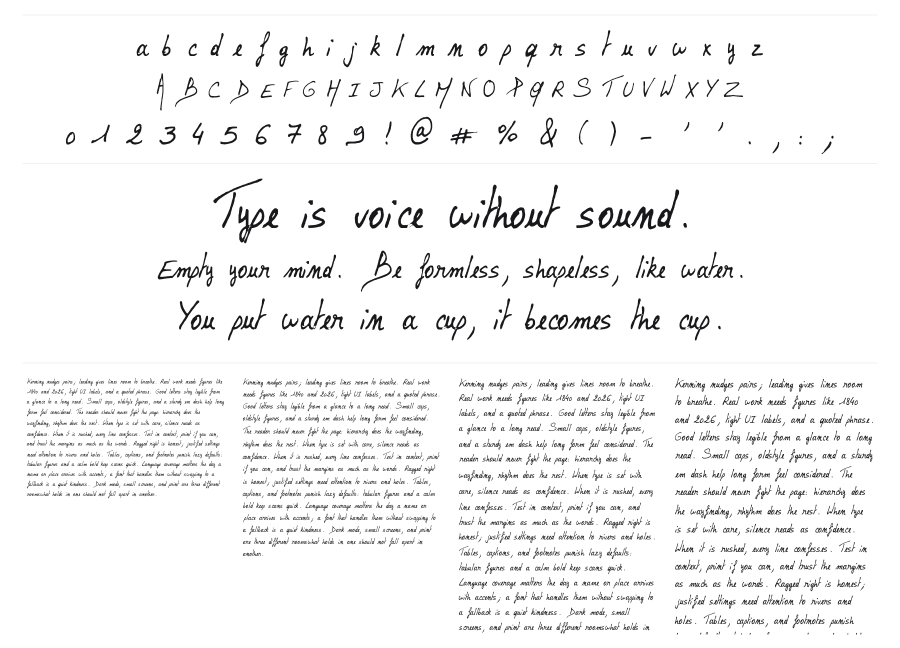
Lalex Big Badaboum
Lalex Big Badaboum is a casual handwritten script digitized from real handwriting, giving it an unfiltered, personal quality. Slightly uneven strokes and organic letter connections keep it feeling genuinely human rather than polished. It works well wherever authenticity and informality matter more than precision.